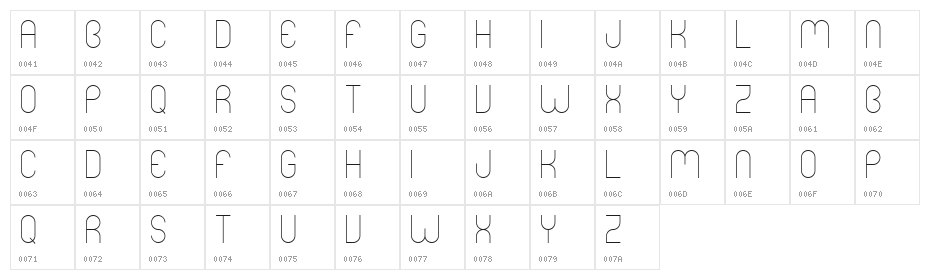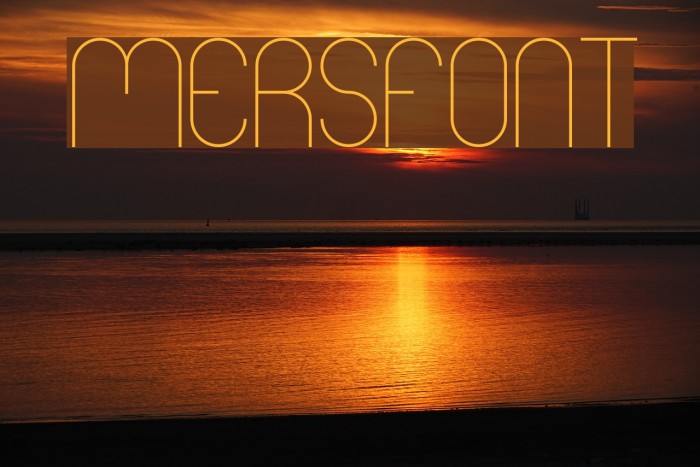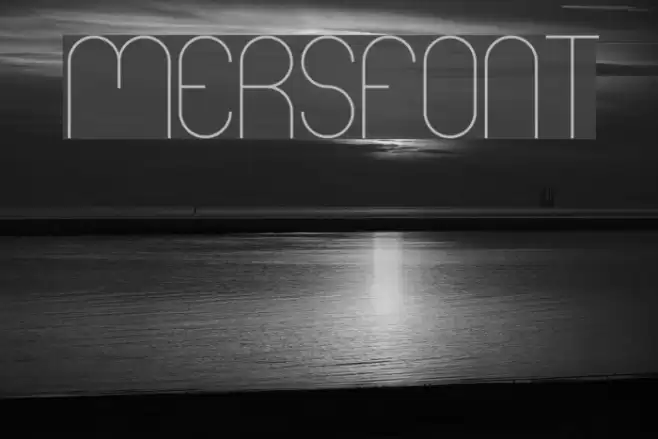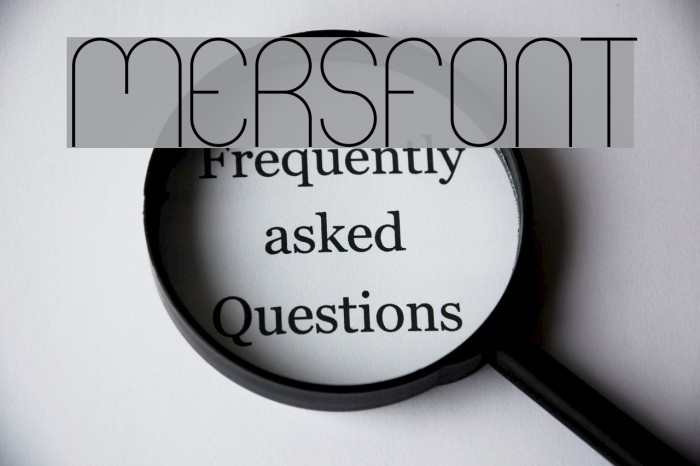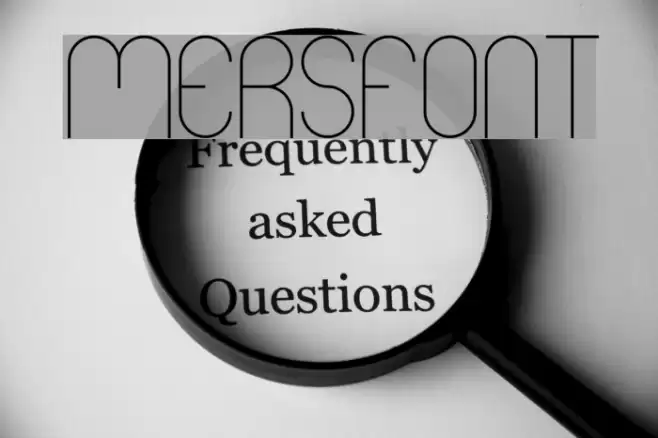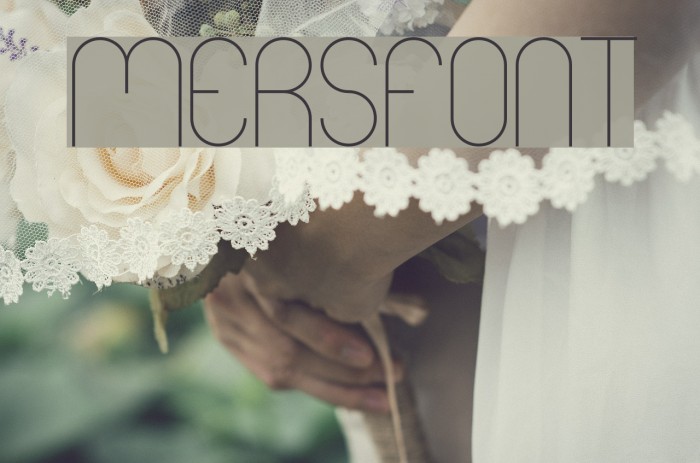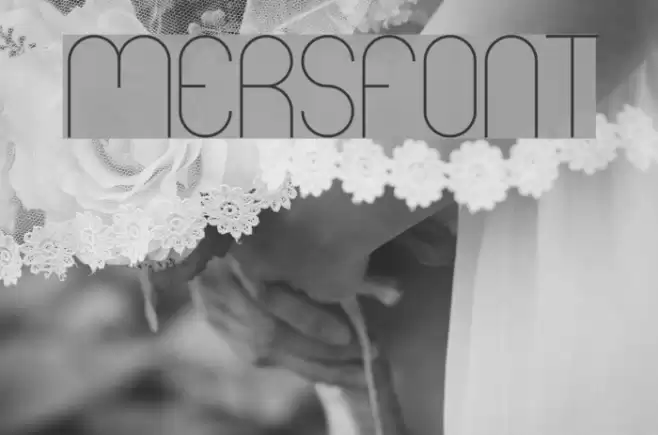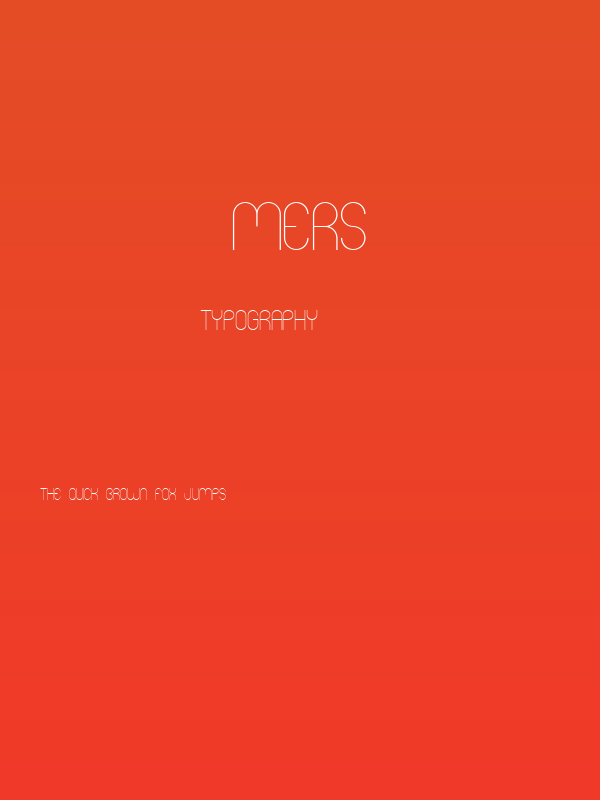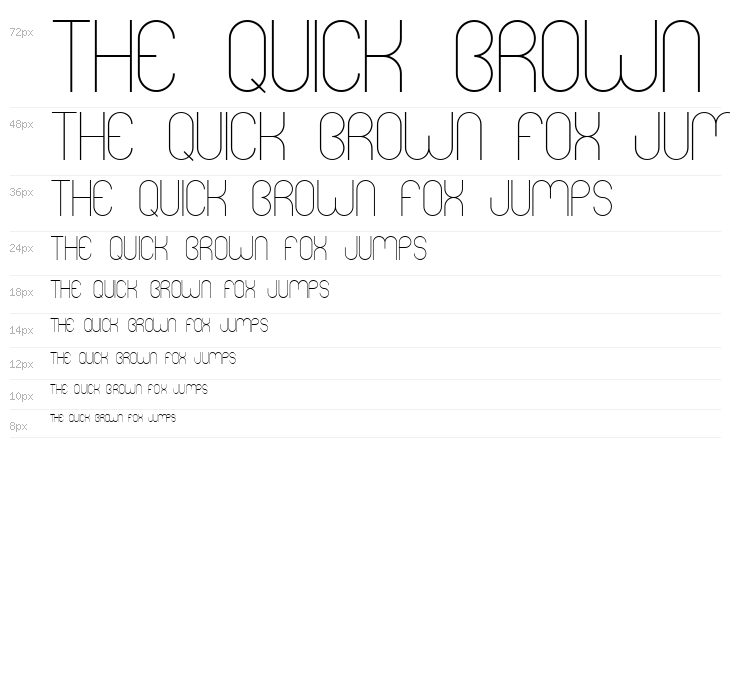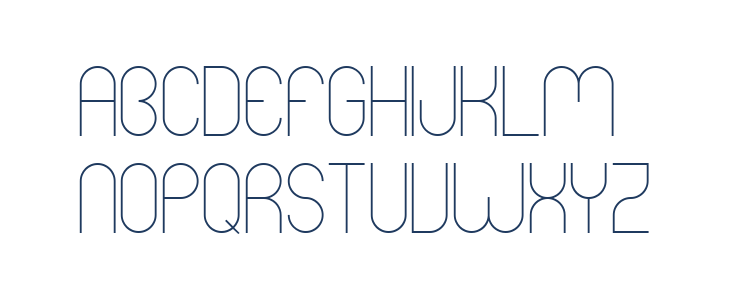
Mers Font
Mers Description
This font features a modern, minimalist design with clean, geometric lines. The characters are constructed with a consistent stroke width, creating a uniform and sleek appearance. The uppercase letters are tall and narrow, with rounded edges that soften the overall look. The lowercase letters maintain the same geometric style, ensuring a cohesive design throughout. The font's simplicity and elegance make it suitable for contemporary design projects, where clarity and style are paramount. Its unique structure allows it to stand out while remaining legible, making it ideal for branding, advertising, and digital media.
| Proposed Projects | Ideal for branding, advertising, digital media, and contemporary design projects. |